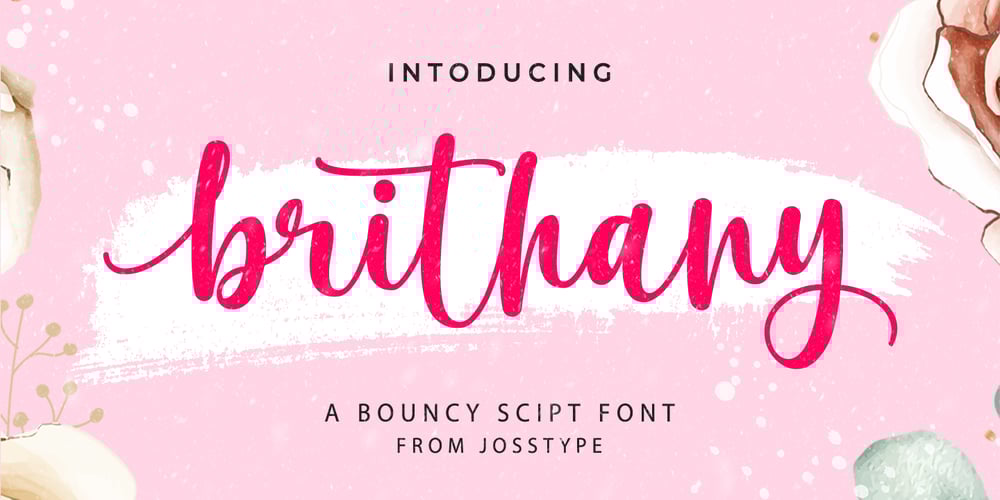
Brithany Font Family was designed by Teuku Zulfikar and published by Josstype. Brithany contains 1 styles and family package options. Brithany Script is Hand Lettered Calligraphy Font with beautiful waves and natural flow. has a unique letter style, with natural handdrawn, and has a softer and smoother character subtly connect all the characters. They have a simple elegant swashes in separate letters, you can use graphic design software to access the alternate letter.Brithany Script 427+ glyphs . including initial and terminal letters, alternates, swashes, ligatures and multiple language support.o enable the OpenType Stylistic alternates, you need a program that supports OpenType features such as Adobe Illustrator CS, Adobe Indesign & CorelDraw X6-X7, Microsoft Word 2010 or later versions.There are additional ways to access alternates/swashes, using Character Map (Windows), Nexus Font (Windows), Font Book (Mac) or a software program such as PopChar (for Windows and Mac).How to access all alternative characters:http://youtu.be/iptSFA7feQ0nn http://cuttingforbusiness.com/2016/01/28/how-to-use-opentype-fonts-in-silhouette-studio-or-cricut- design-space/ https://www.youtube.com/watch?v=Go9vacoYmBw Thank you for your purchase! and please let me know if you have any questions. via email: joelpopon@gmail.com